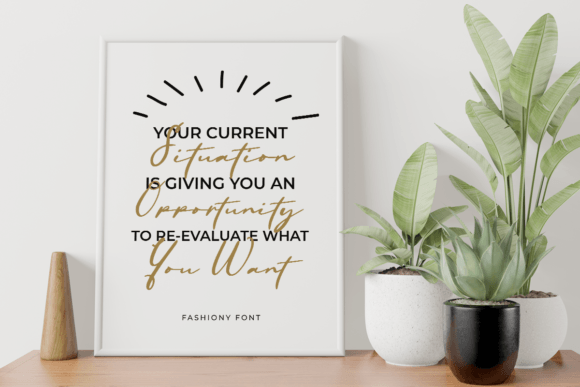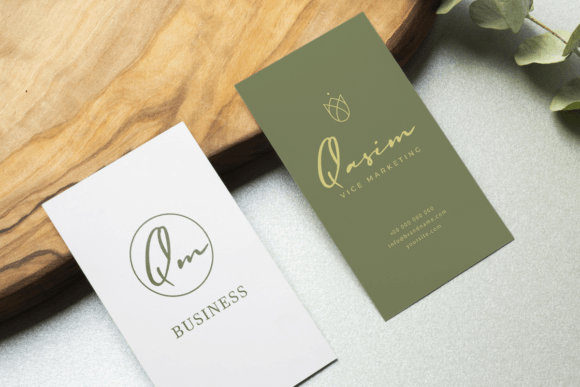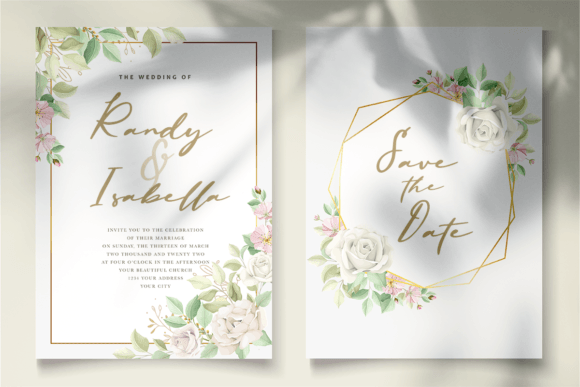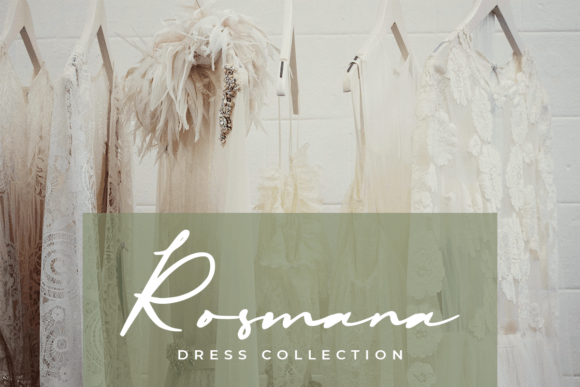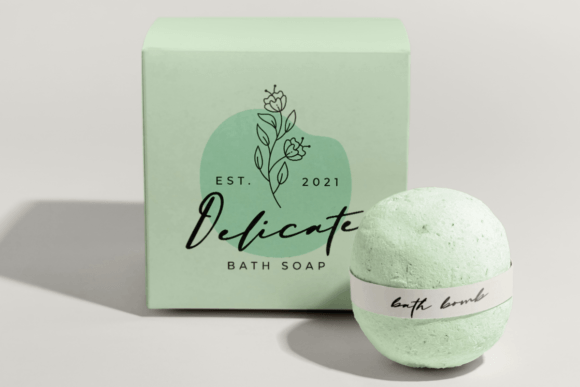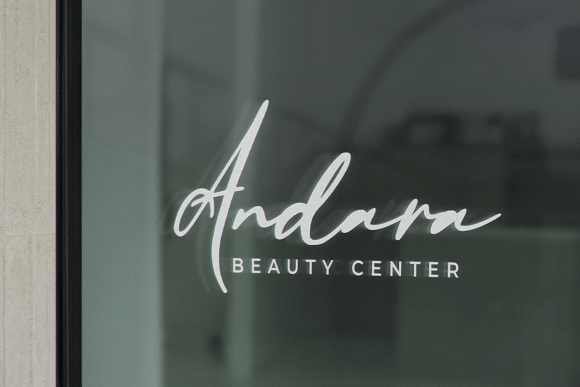
Introduction to Fashiony Font
Have you ever stumbled upon a beautifully designed wedding invitation or a quote that left you speechless? For designers, it’s those moments that remind us why we do what we do – to create something truly special and make a lasting impression. When it comes to elevating our designs, a high-quality font can be the game-changer we need. That’s where the Fashiony Font comes in – a stylish and elegant script font that adds a touch of sophistication to any creative project.
Whether you’re working on a design for a client or a personal project, having a reliable design resource like the Fashiony Font can make all the difference. With its versatility and beautiful handwritten feel, this font is perfect for everything from wedding invitations to business cards and logos. And the best part? You can download it for free, making it an invaluable asset for any designer looking to take their work to the next level.
One of the things that sets the Fashiony Font apart is its high-quality design, complete with a transparent background that makes it easy to use in any design scenario. Whether you’re working on a simple greeting card or a complex marketing campaign, this font is sure to bring a level of elegance and sophistication that will leave your clients or audience impressed.
Key Features of Fashiony Font
- High-quality design resource ideal for creative projects, including fashion magazines, blogs, and websites.
- Features a transparent background, making it easy to overlay on images and other design elements.
- Comes in a range of sizes, including 48px, 64px, and 96px, to suit different design needs.
- Unique, stylish design elements, including swashes and flourishes, add a touch of elegance to any creative project.
- Perfect for designers looking for a high-quality, free font to enhance their design resource library.
Honest Review: Fashiony Font
I recently stumbled upon the Fashiony Font, a free download that I thought would be perfect for a creative project I’m working on. As a designer, I was excited to explore its capabilities.
- ✨ High quality and elegant design, making it ideal for fashion or lifestyle-related designs.
- ✨ The font comes with a transparent background, allowing for seamless integration with any background image or color.
- ⚠️ The font is limited to a single style, which may not be ideal for designers who want to create complex or multi-styled designs.
Overall, I think the Fashiony Font is a great resource for designers working on fashion or lifestyle-related projects. While it has some limitations, its high quality and elegant design make it a valuable addition to any design resource. I would definitely recommend it to anyone looking for a stylish and easy-to-use font.
Fashiony Font is ideal for designing fashion-related projects, such as clothing labels, advertisements, and blog posts. It’s also great for creating invitations, menus, and other print materials that require a touch of style and sophistication.